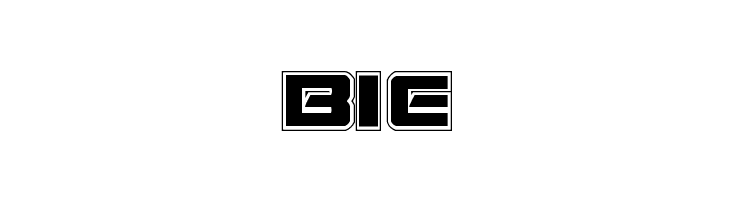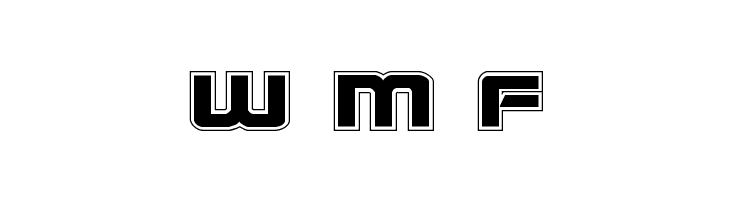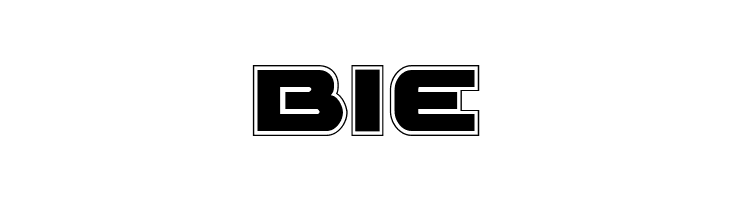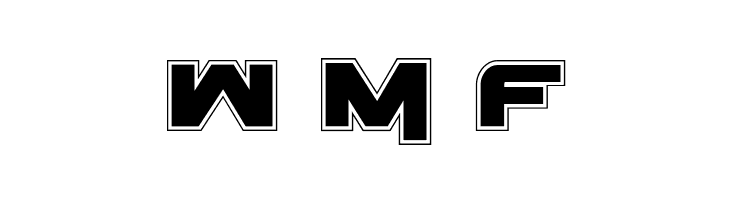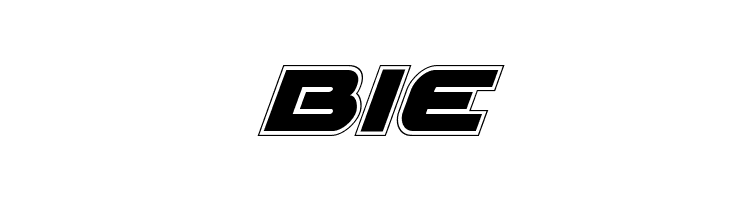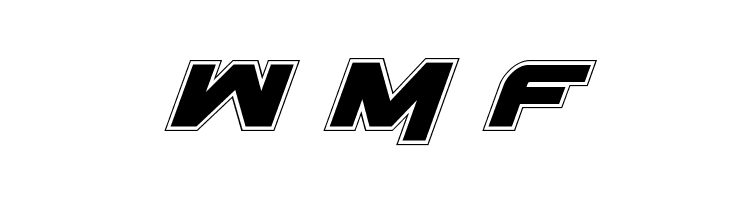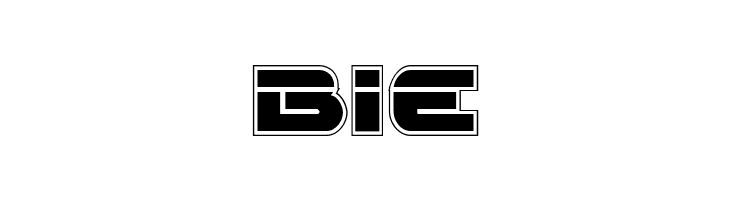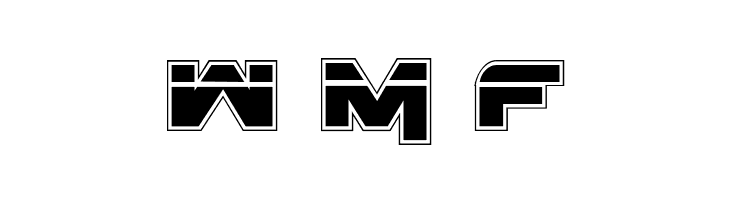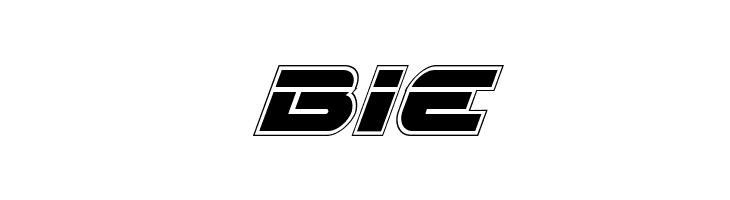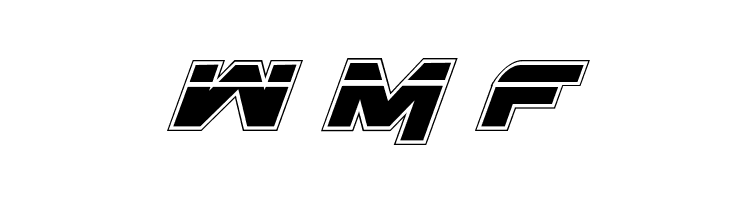
A bold, futuristic font with geometric outlines and strong contrast.
A bold, geometric font with a futuristic and dynamic style.
A futuristic, geometric font with bold, angular shapes and a three-dimensional outline.
A bold, italic, futuristic font with a double-layered outline and geometric shapes.
A bold, futuristic font with geometric outlines and sharp edges.
A bold, futuristic italic font with a double-layered outline and geometric shapes.
A bold, futuristic font with geometric outlines and strong visual impact.
A bold, italicized font with a futuristic, outlined style.